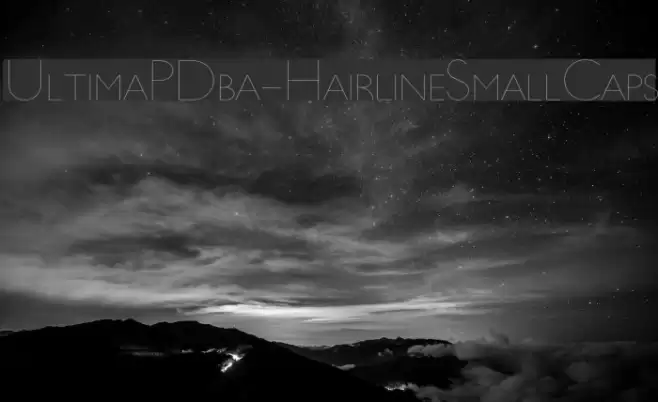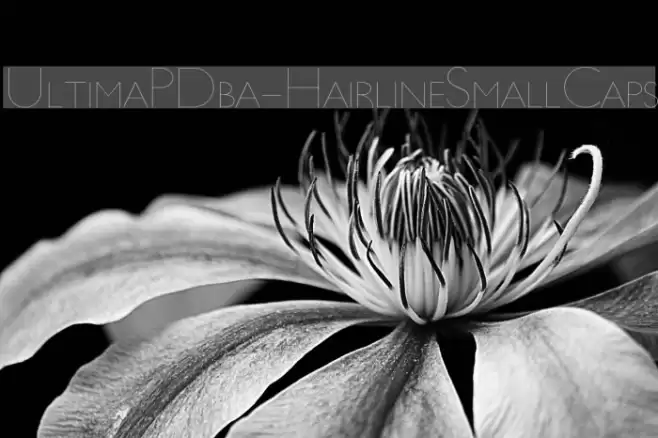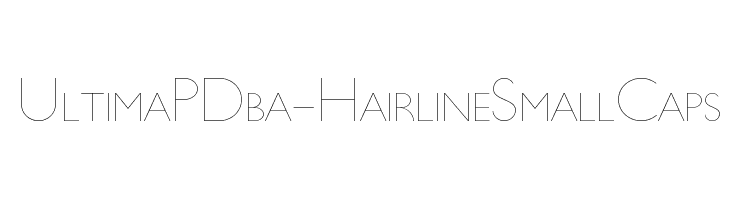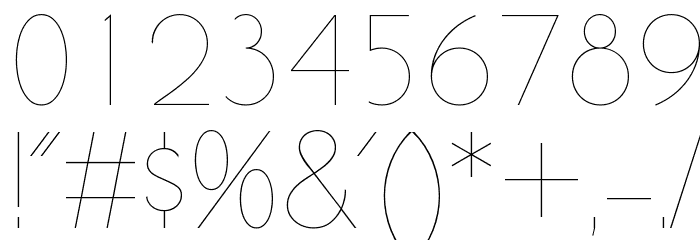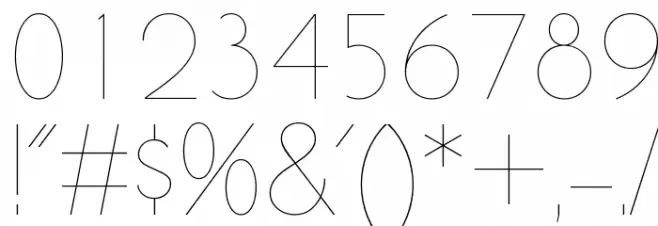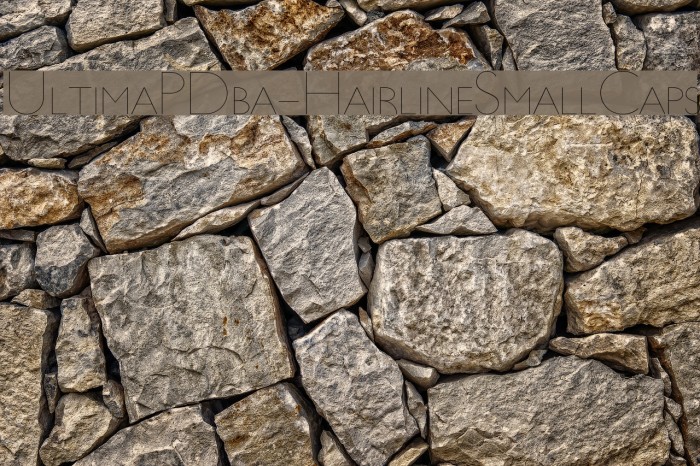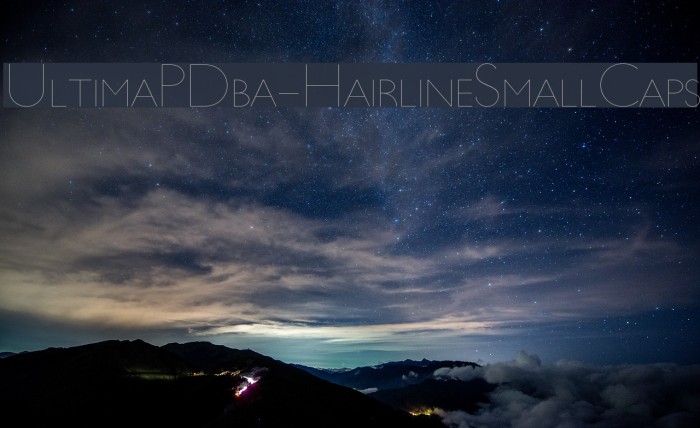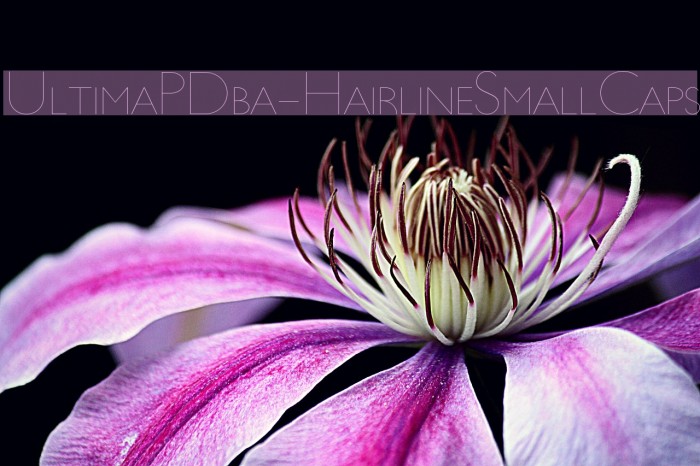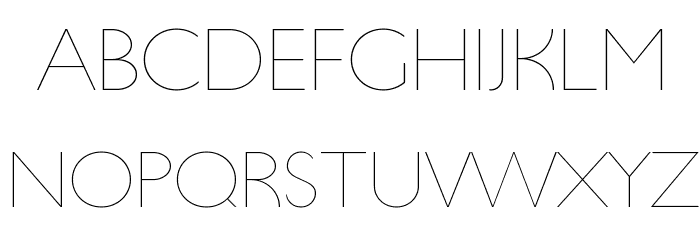
UltimaPDba-HairlineSmallCaps Font
UltimaPDba-HairlineSmallCaps Description
This font features a sleek, ultra-thin design with a modern aesthetic. The characters are crafted with precision, showcasing a minimalist style that emphasizes clarity and elegance. Each letter is formed with consistent line thickness, creating a harmonious and balanced appearance. The uppercase and lowercase letters maintain a uniform height, contributing to a cohesive look. The numerals are designed with the same attention to detail, ensuring readability and style. Special characters are included, enhancing the font's versatility. This font's hairline strokes make it ideal for projects that require a sophisticated and contemporary touch.
A sleek, ultra-thin font with a modern, minimalist design from Uncategorized fonts.
- Proposed Projects: Ideal for luxury branding, high-end fashion magazines, minimalist design projects, and modern web design.
- Use Case: Headlines, Logos, Branding